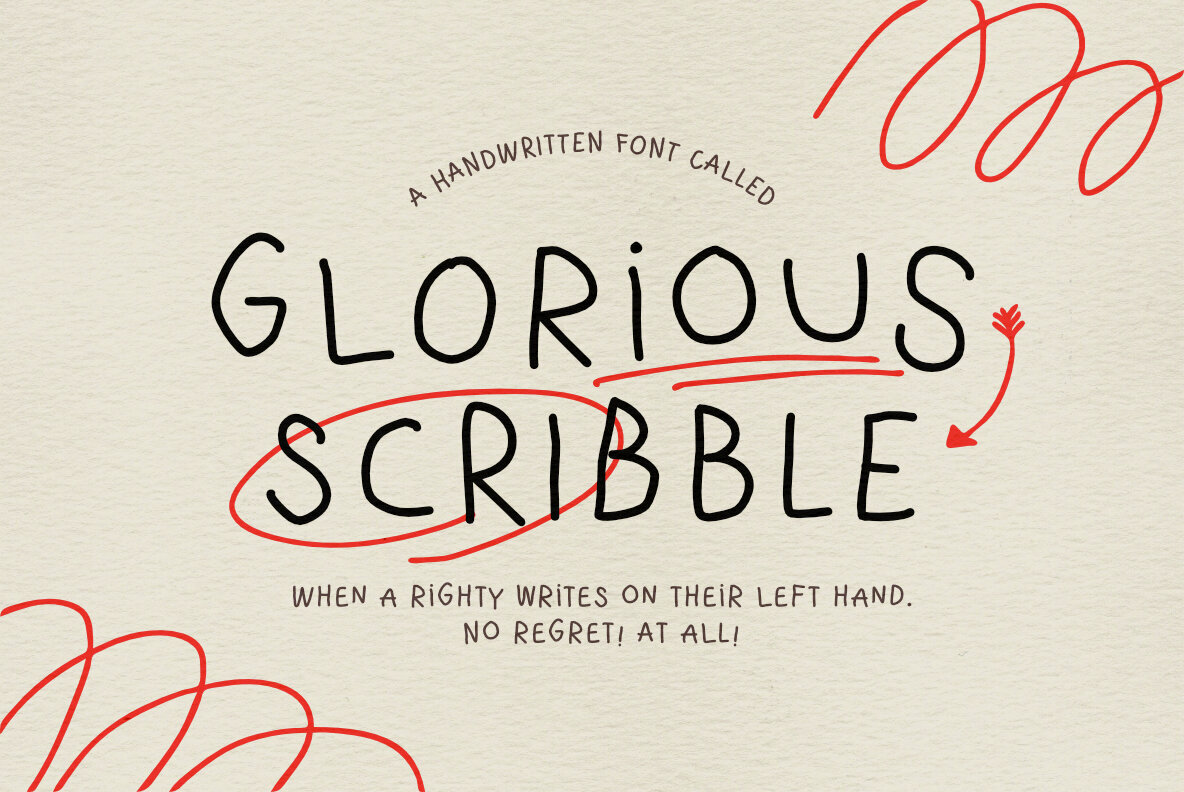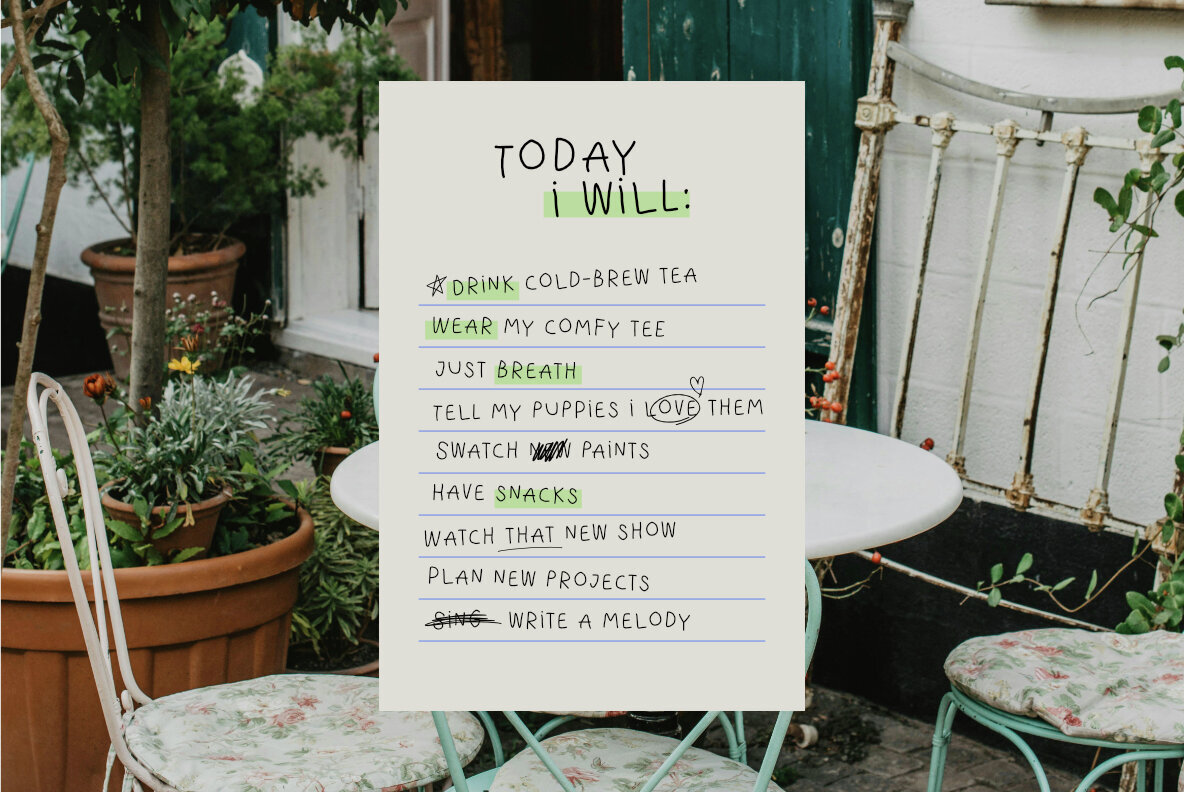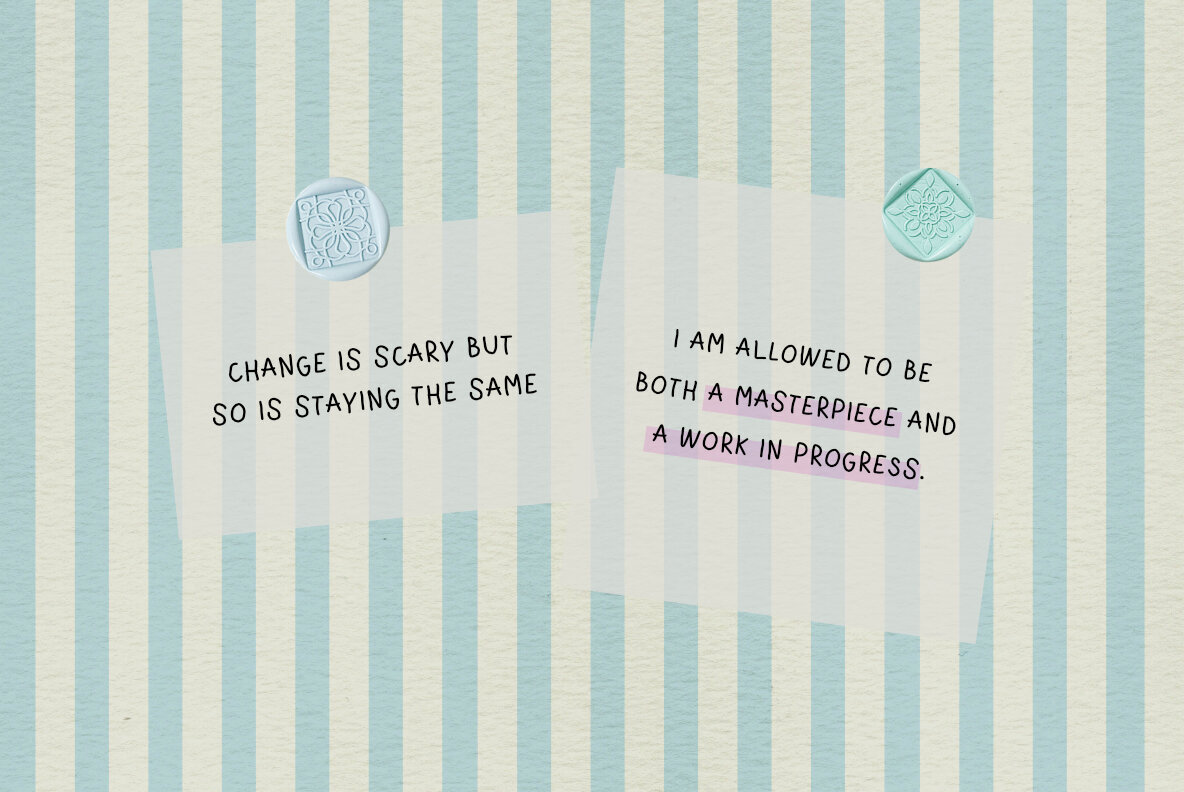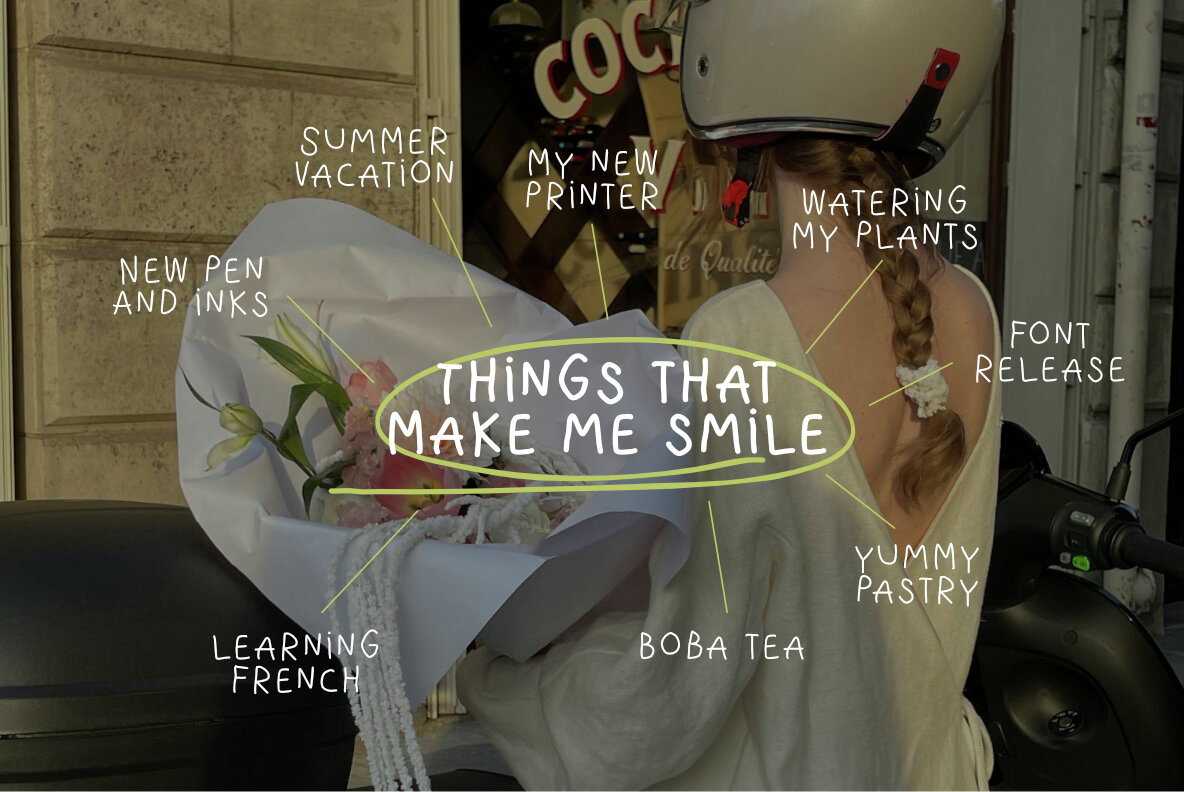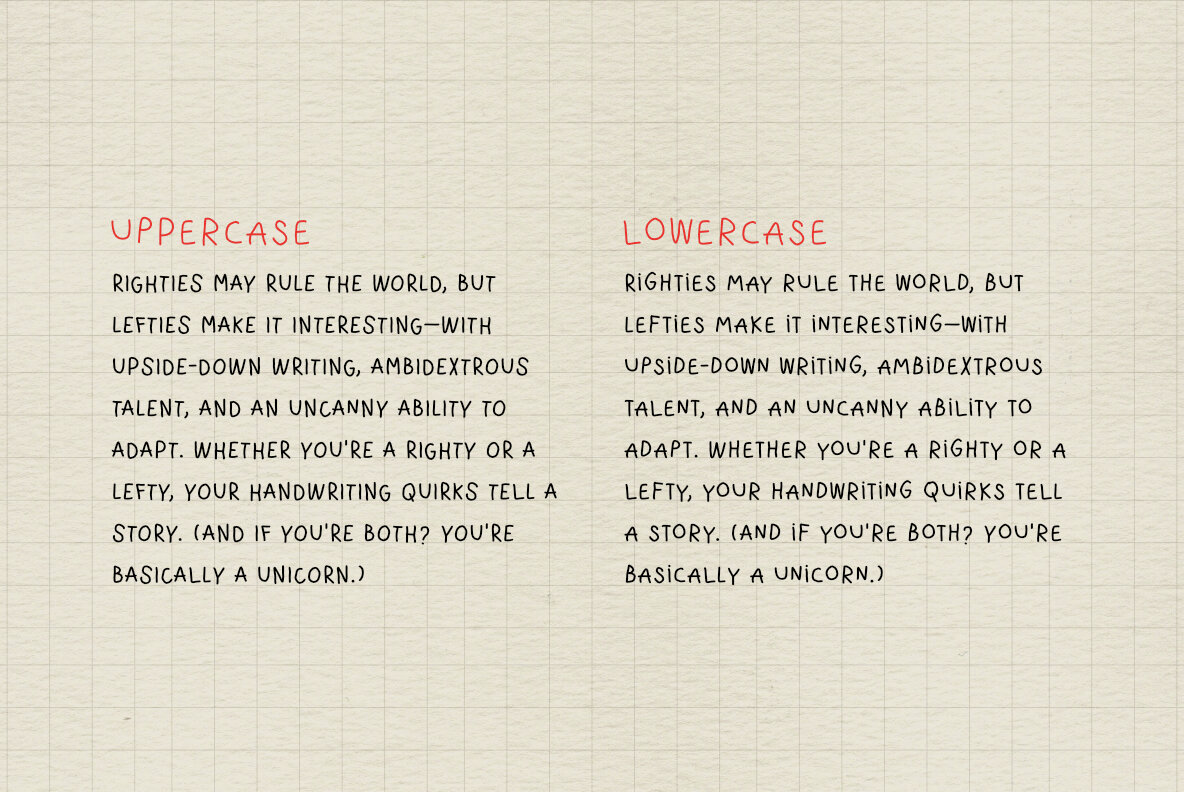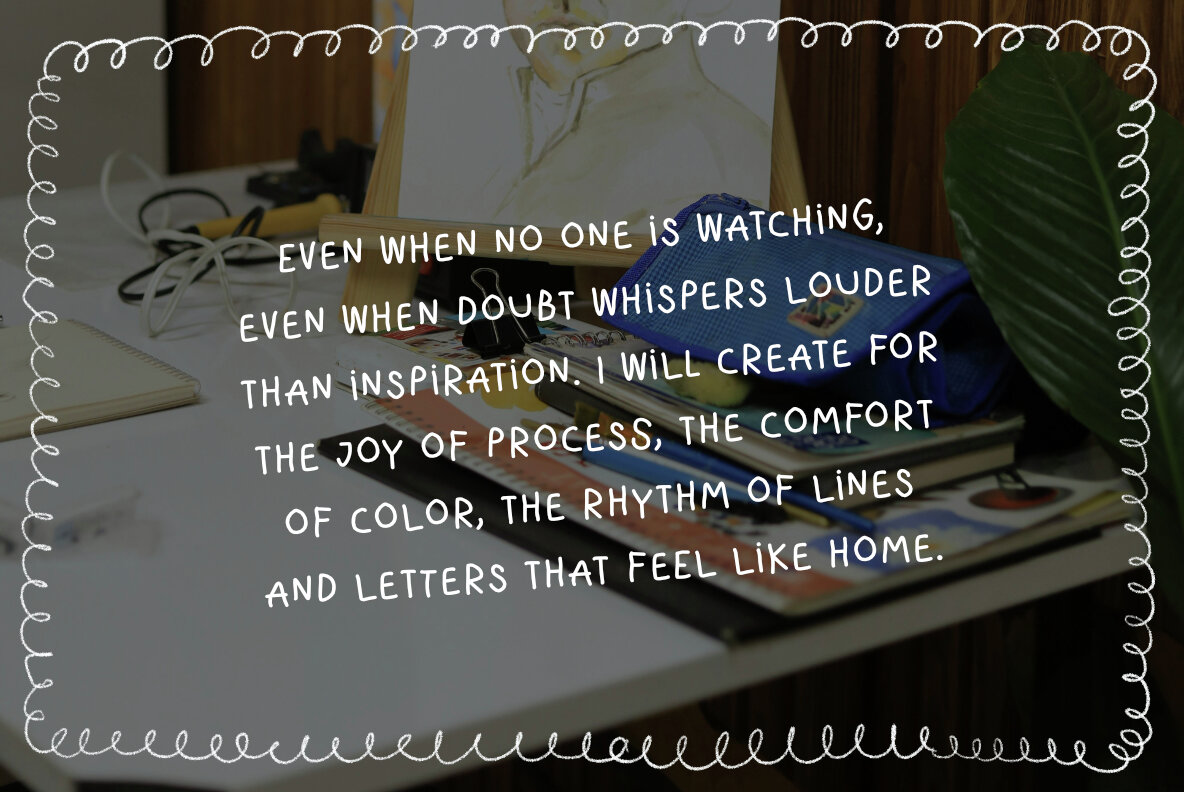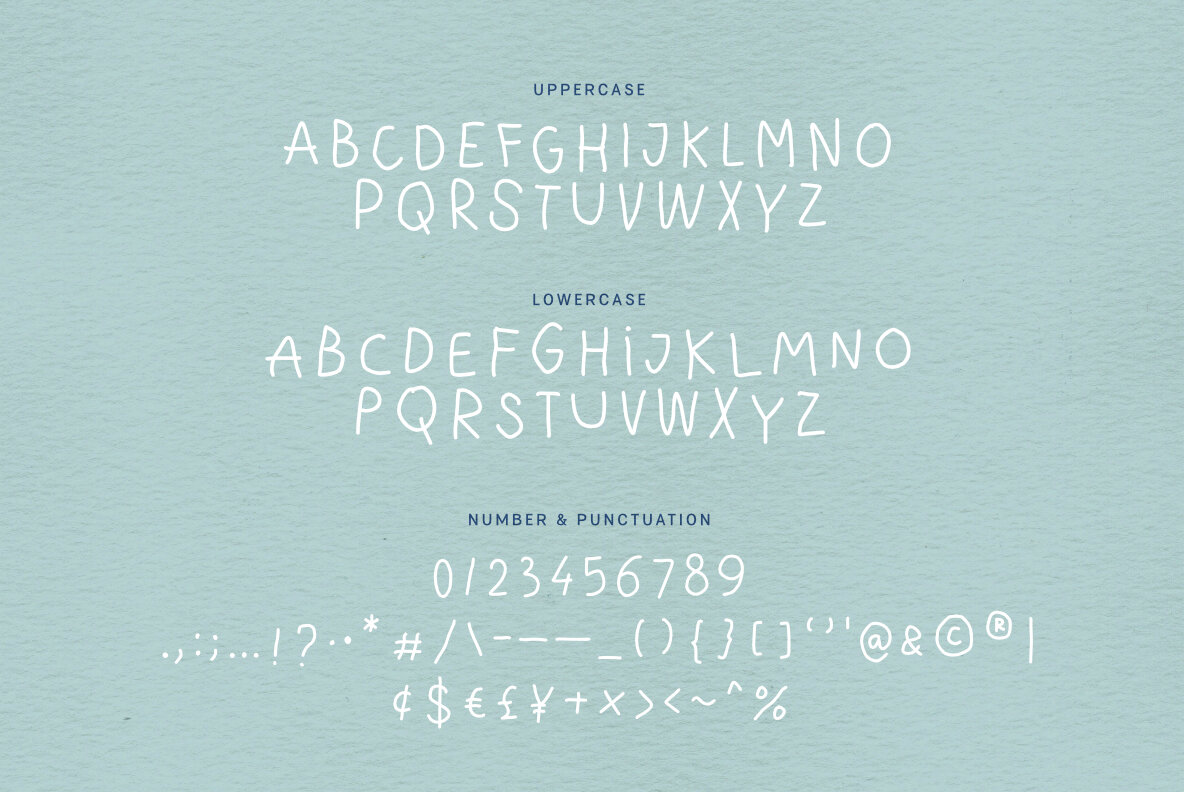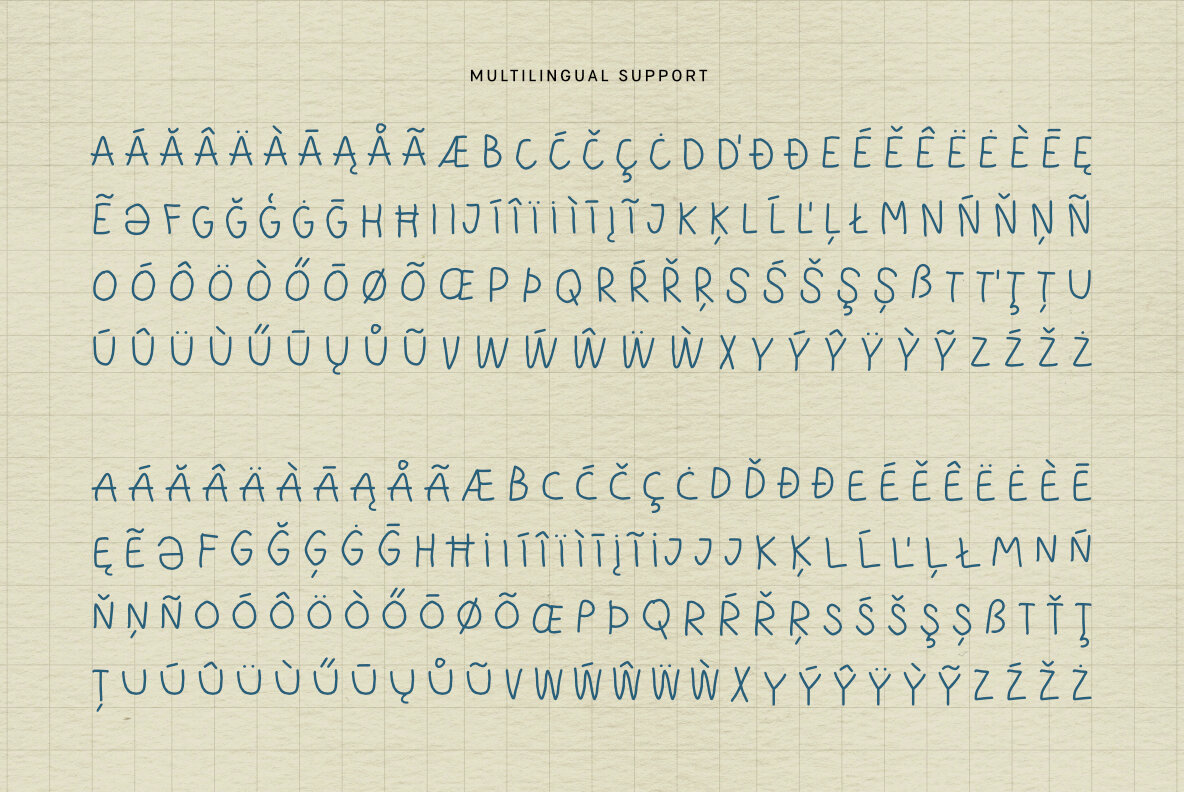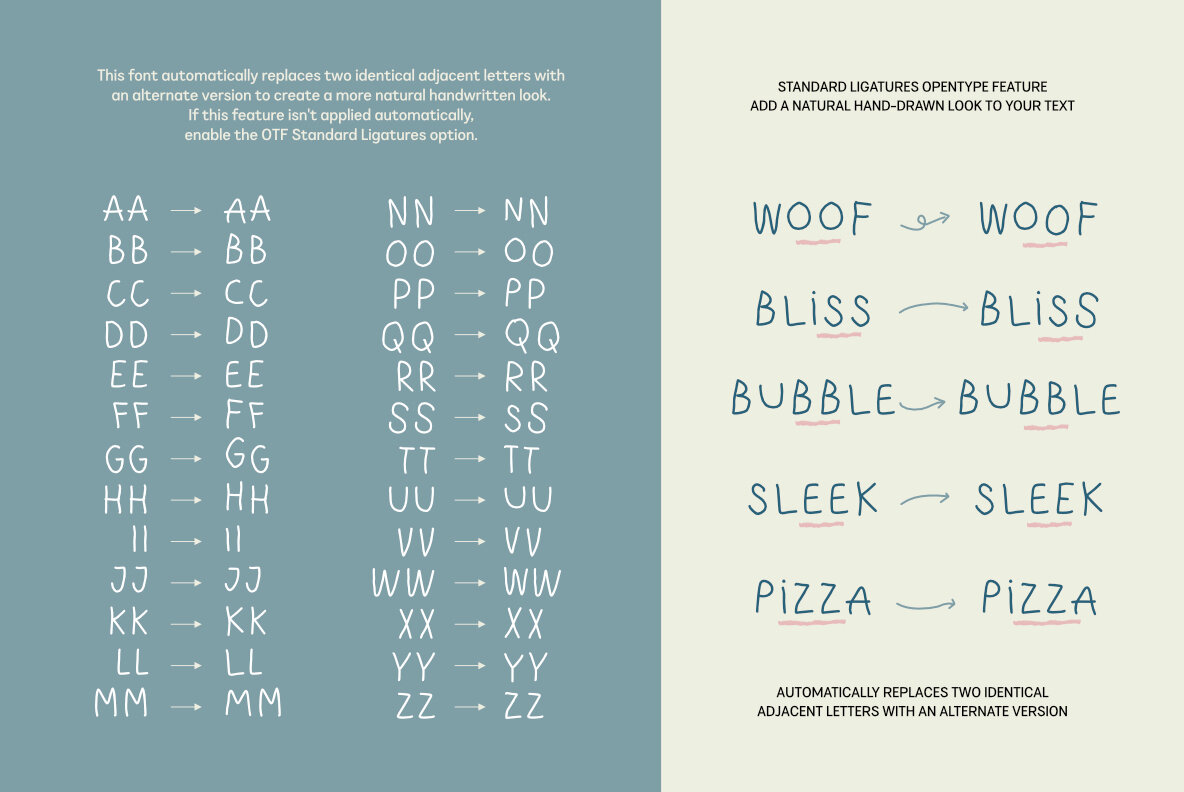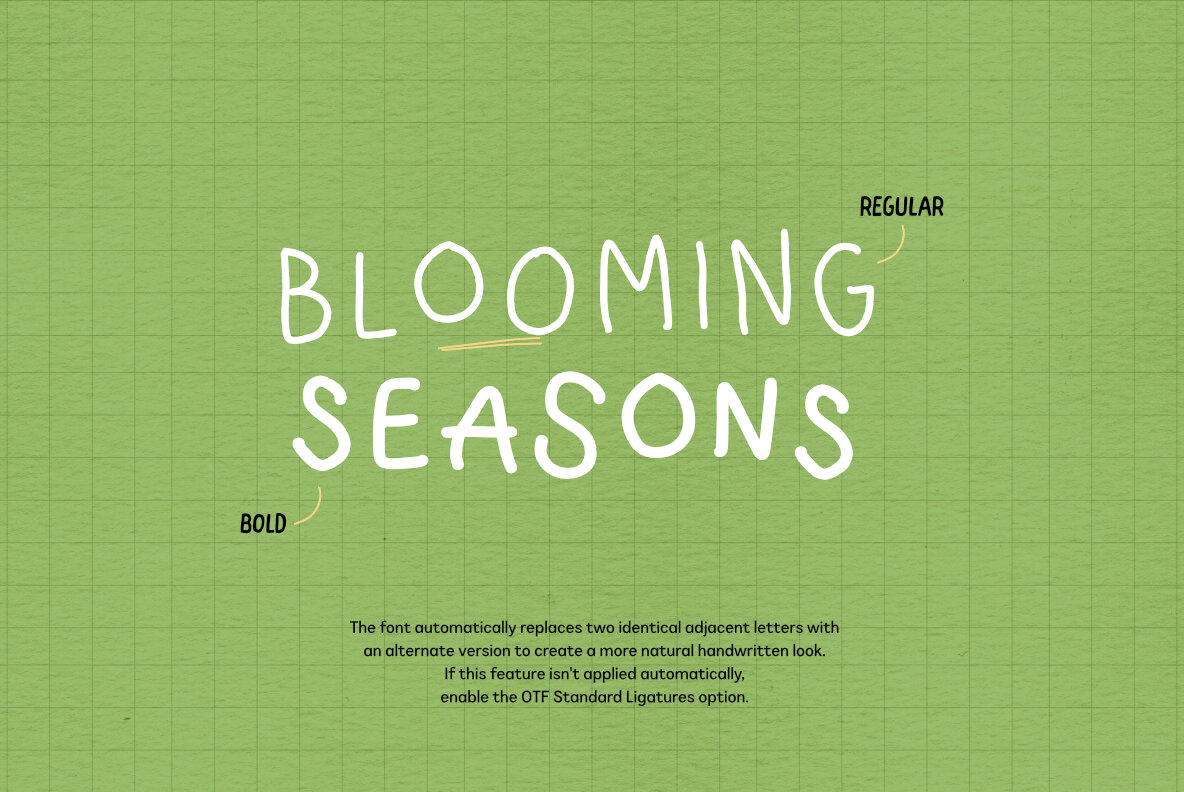
Glorious Scribble Font
Glorious Scribble is a distinctive handwritten font crafted with an unconventional approach—originating from a right-handed designer experimenting with her left hand. This font brings a playful and slightly untamed character to any project. It is available in two weights, Regular and Bold, and offers multilingual support, making it the ideal choice for infusing personality into your designs. A unique feature of Glorious Scribble is its automatic ability to replace two identical adjacent letters with an alternate version, ensuring a more authentic handwritten appearance. If this feature does not apply automatically, you can enable it through the Standard Ligatures option. Script: Latin Supported Languages: English, Western European, Central European, Southeastern European, and moreGlorious Scribble: Playful Handwritten Font